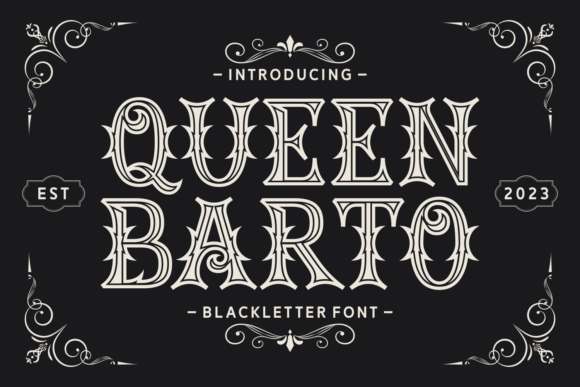
Introducing Queen Barto Font, the ultimate choice for all your branding needs. Crafted by Creative Fabrica Fonts, this magnificent blackletter font is guaranteed to captivate your audience and elevate your typography game to new heights.
With its intricate and stylish design, Queen Barto effortlessly combines elegance and sophistication. The ornate swashes and pointy elements make this font a true work of art, adding a touch of luxury to any project. Whether you're creating a logo, designing book covers, or crafting music album covers, Queen Barto will make a lasting impression.
One of the key features of Queen Barto is its versatility. It adapts seamlessly to various design styles, making it suitable for a wide range of applications. Its bold and commanding presence makes it perfect for headlines and titles, ensuring that your words grab attention and leave a lasting impact.
But Queen Barto doesn't stop there. Its timeless appeal also makes it ideal for signage and branding materials. Imagine your company name or slogan beautifully crafted in this stunning font, instantly conveying a sense of class and professionalism. Stand out from the crowd and make a statement with Queen Barto.
Not only does Queen Barto excel in aesthetics, but it is also designed with functionality in mind. Its legibility ensures that your message is clear and easy to read, even at smaller sizes. Don't compromise on readability when choosing a font for your projects – Queen Barto has got you covered.